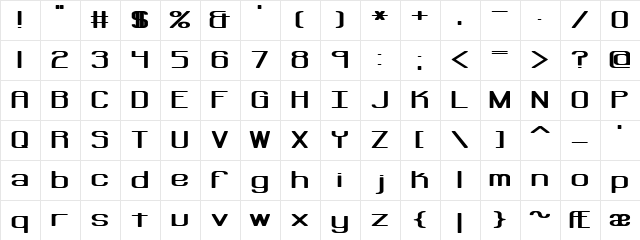
Regenerate BRK Regular
Design Context for Regenerate BRK Typeface
Regenerate BRK takes a measured approach to typography — its balanced proportions and neutral character make it a reliable workhorse for both digital and print work.